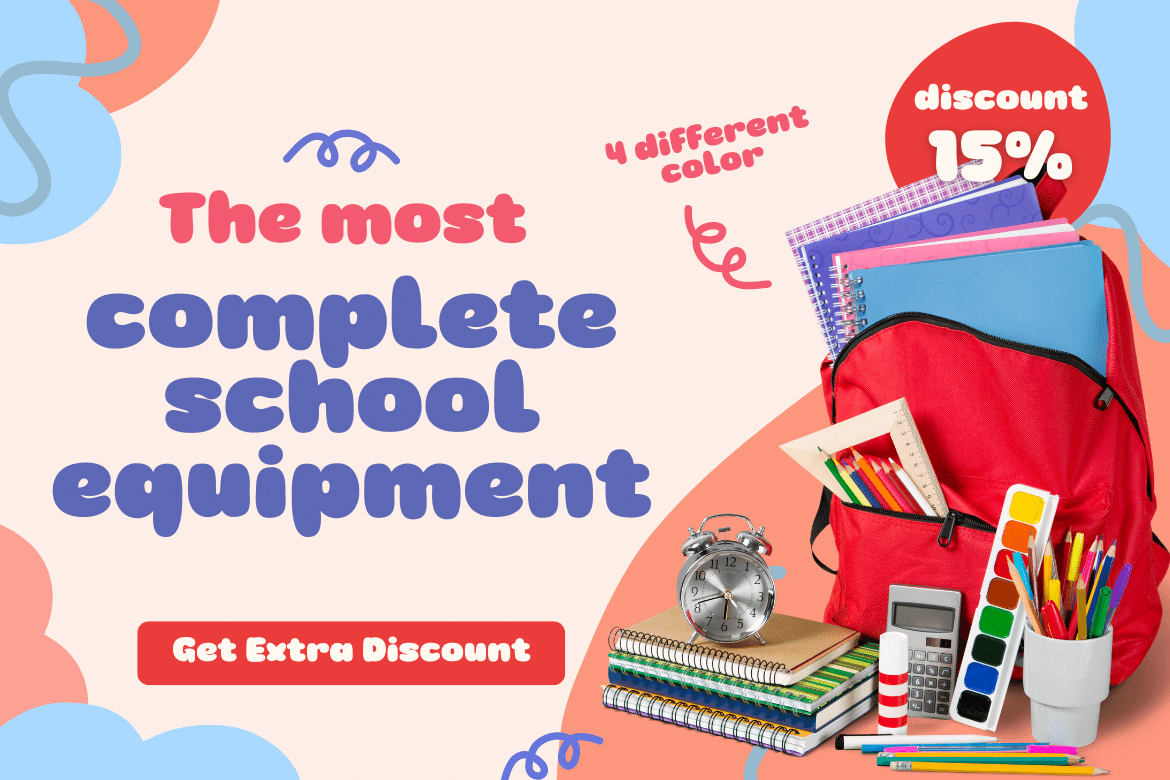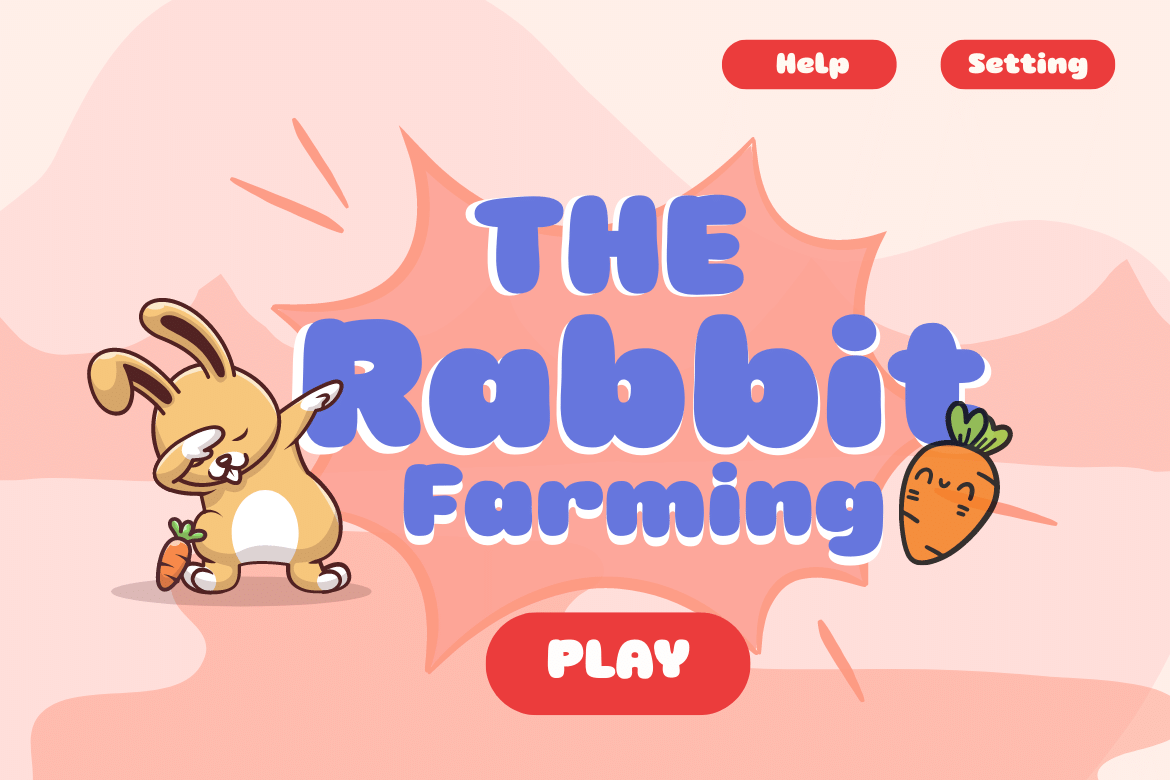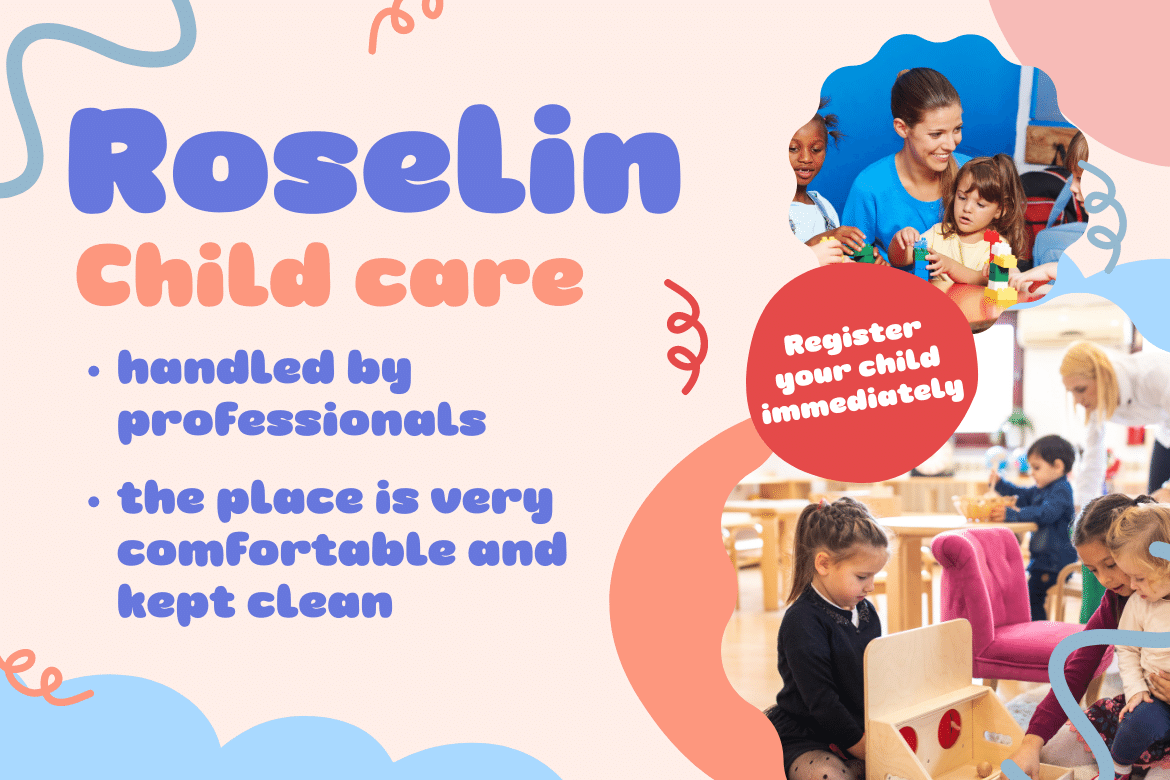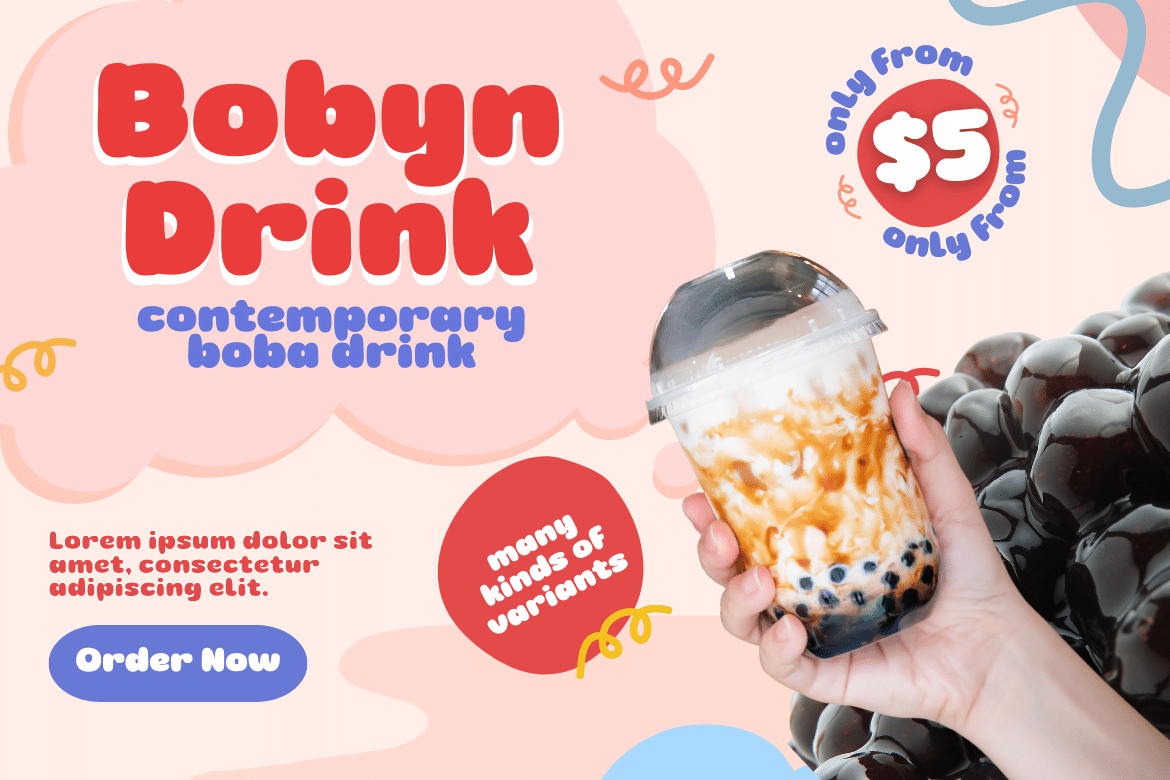
Ginuk Font
Ginuk Display Font
With its versatile style, this font can be used in a variety of ways in your projects so you can demonstrate your ideas in a captivating way. This font is equipped with the Latin ISO standard so you don’t have to worry about the completeness of the character.
of course, your various design projects will be perfect and extraordinary if you use this font because this font is equipped with a font family, both for titles and subtitles and sentence text, start using our fonts for your extraordinary projects.